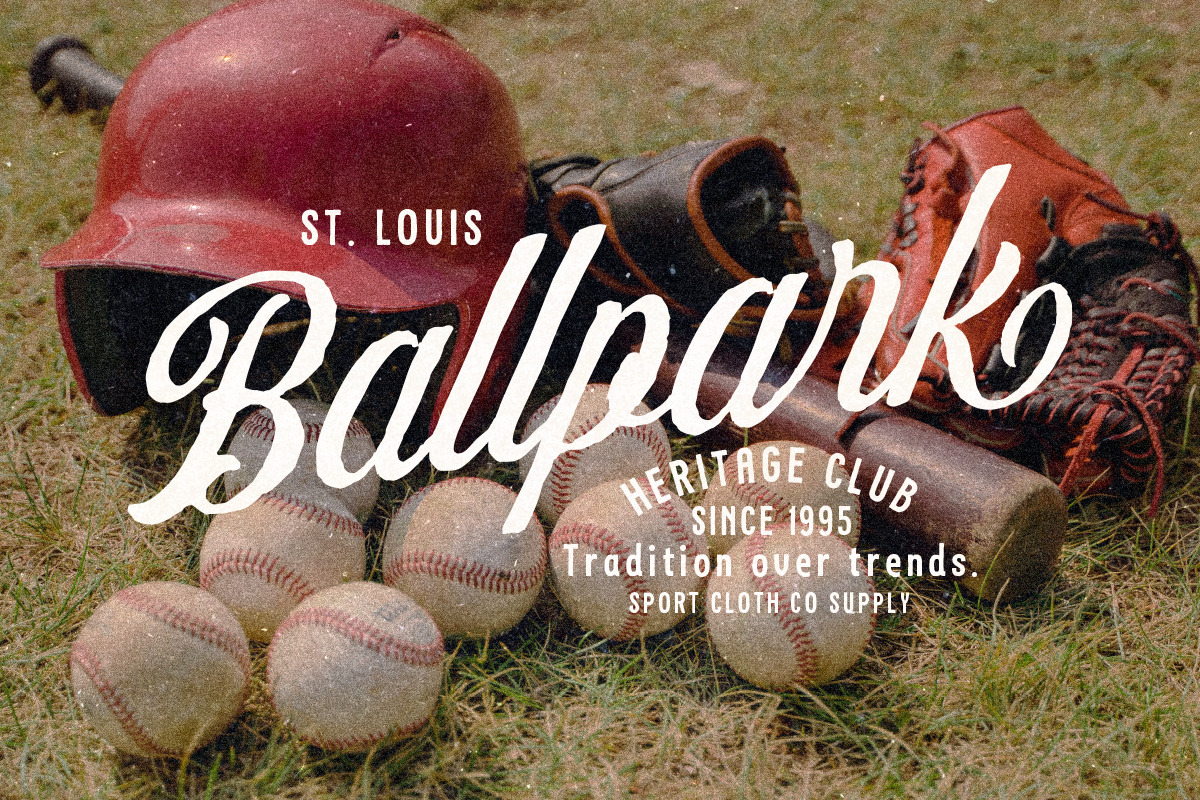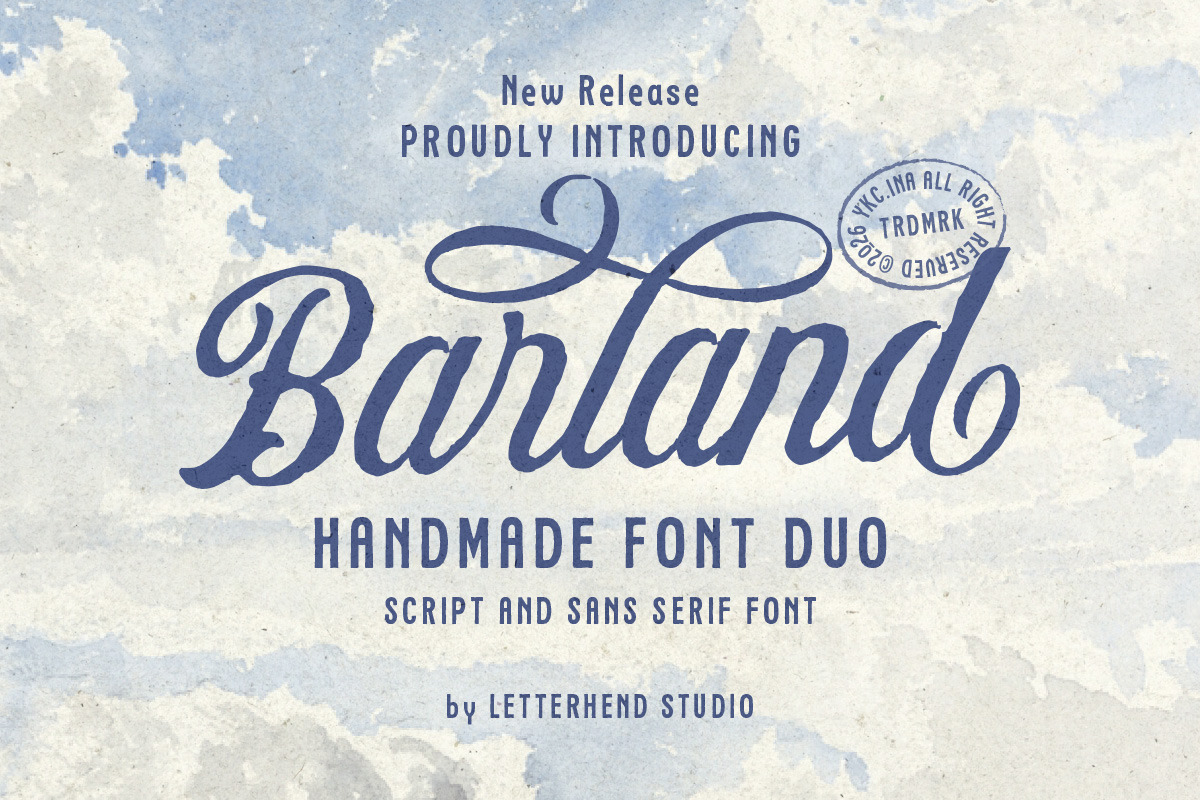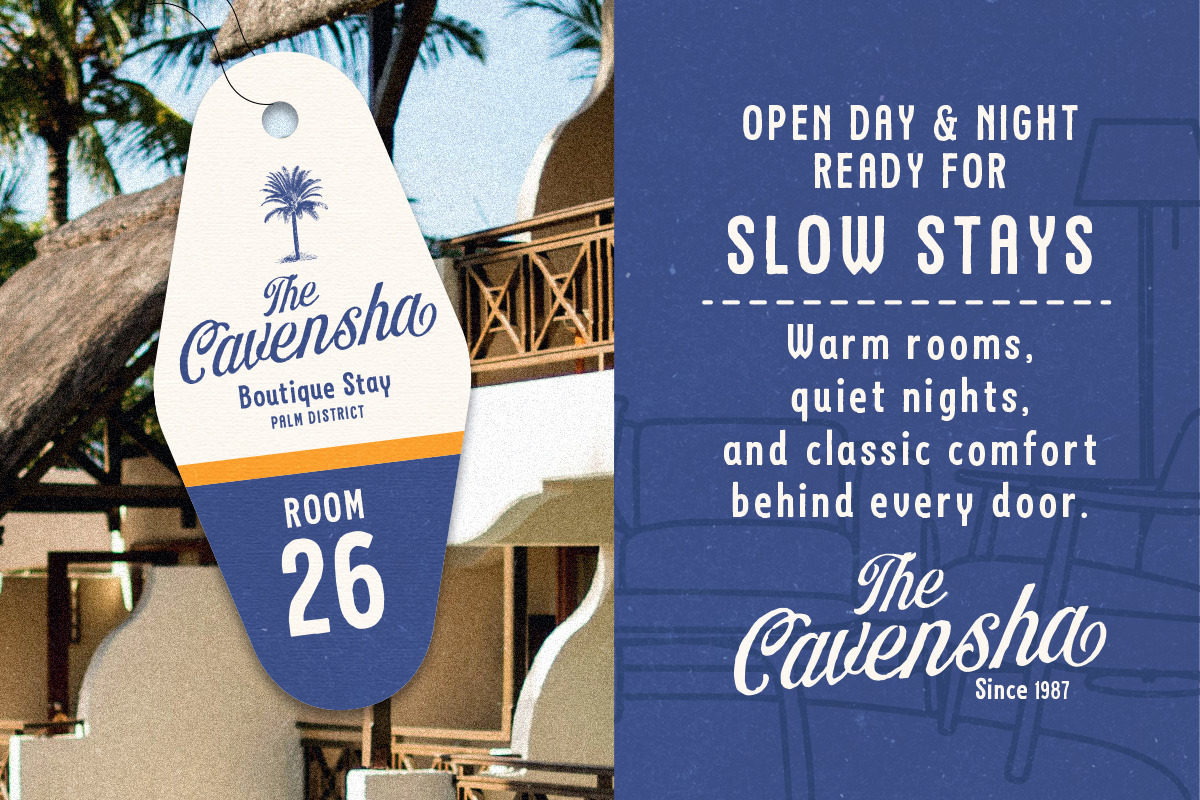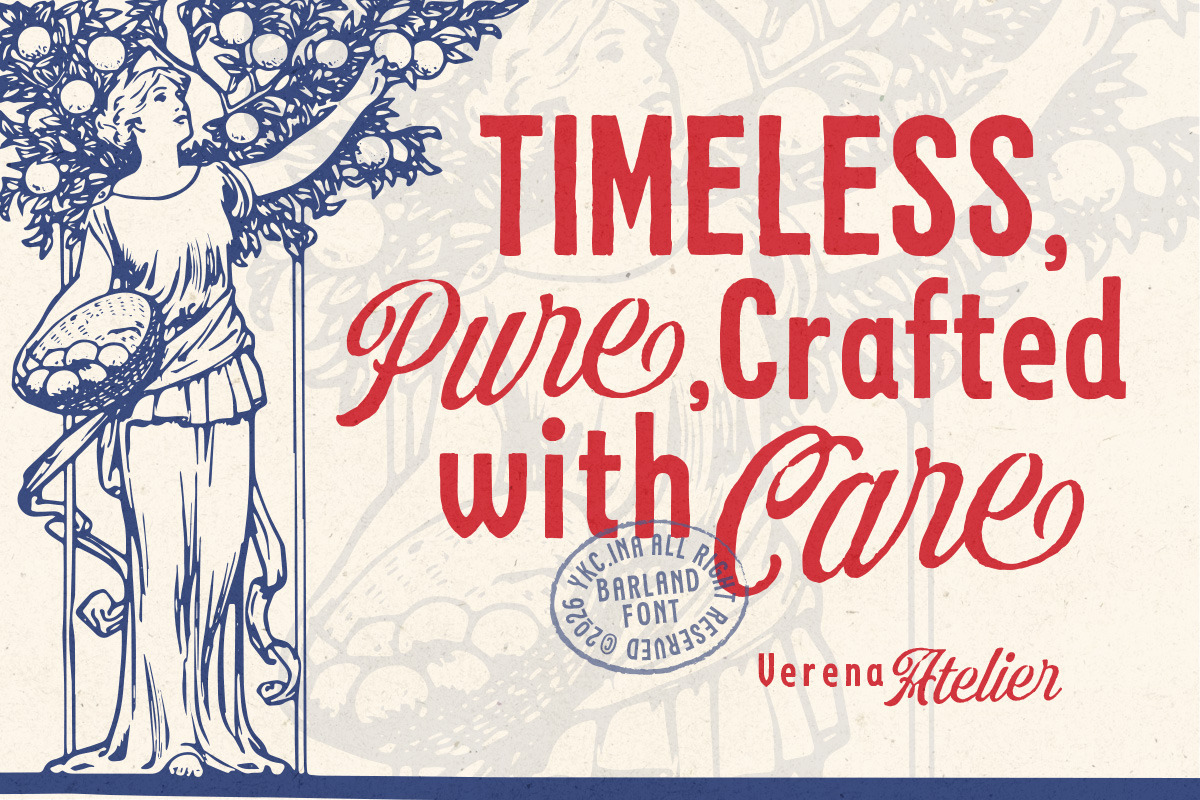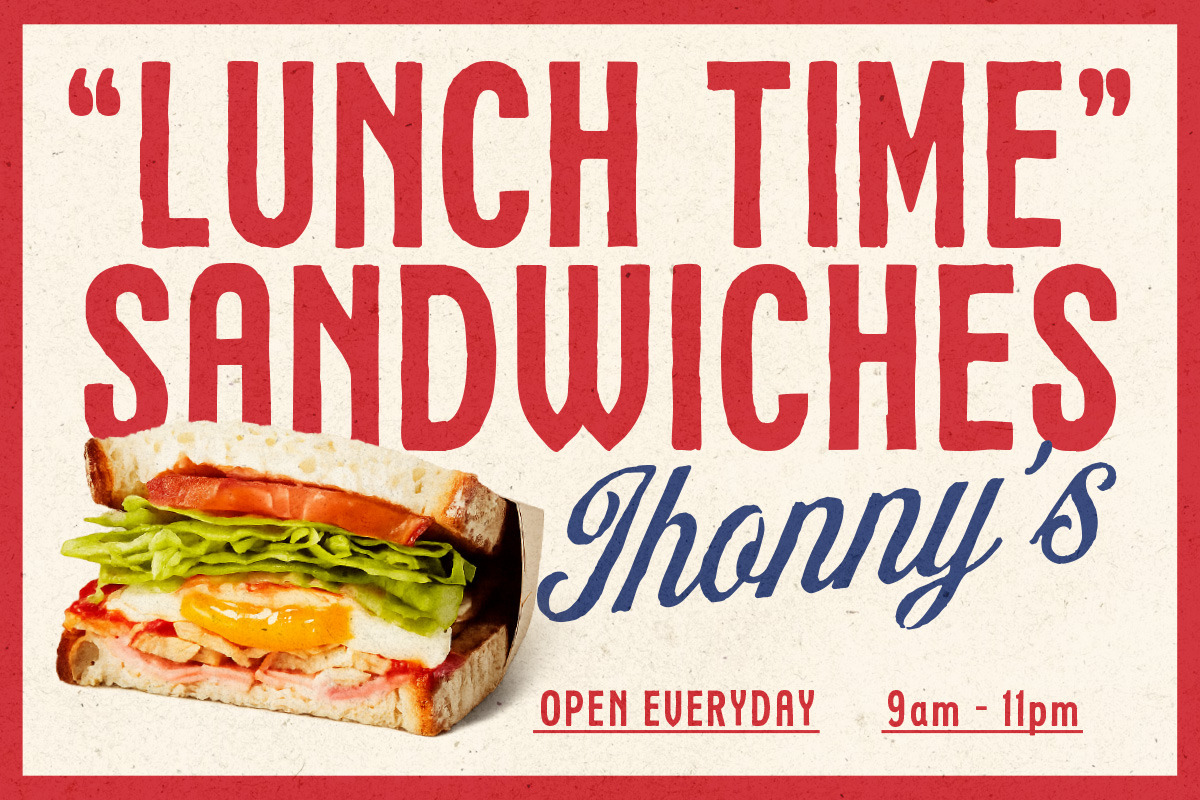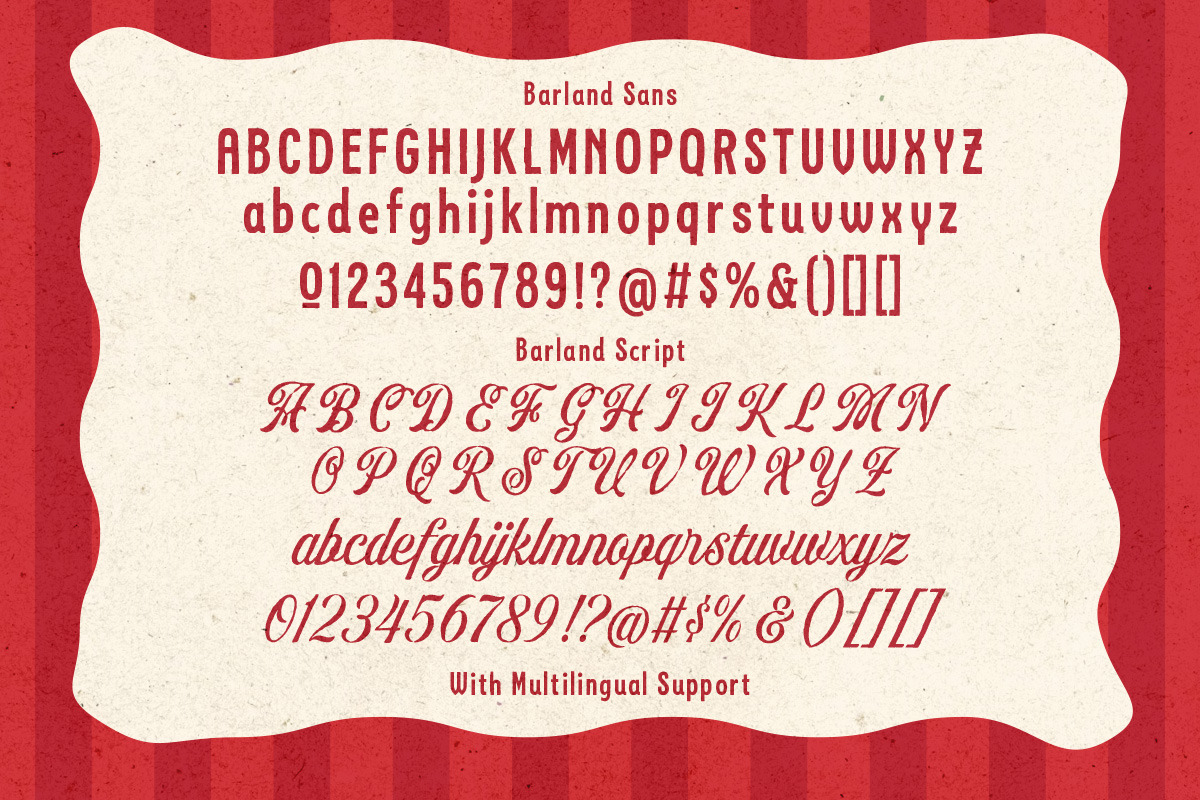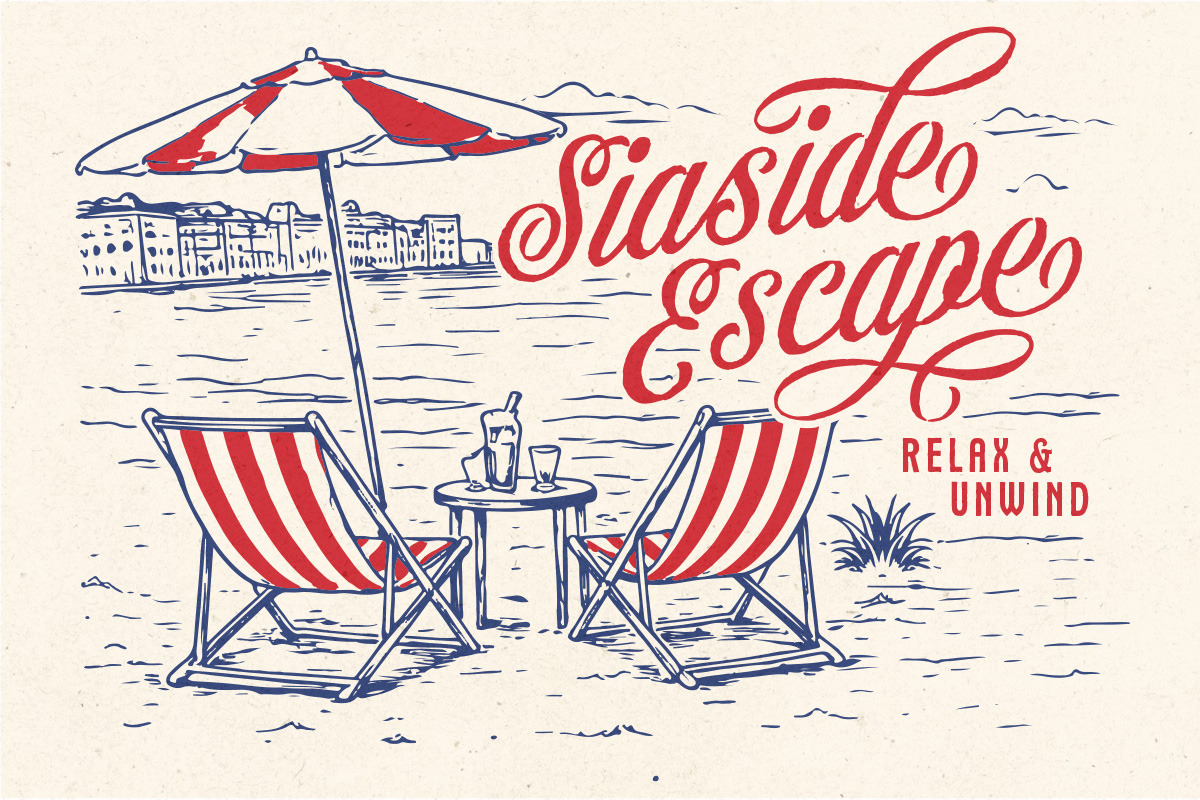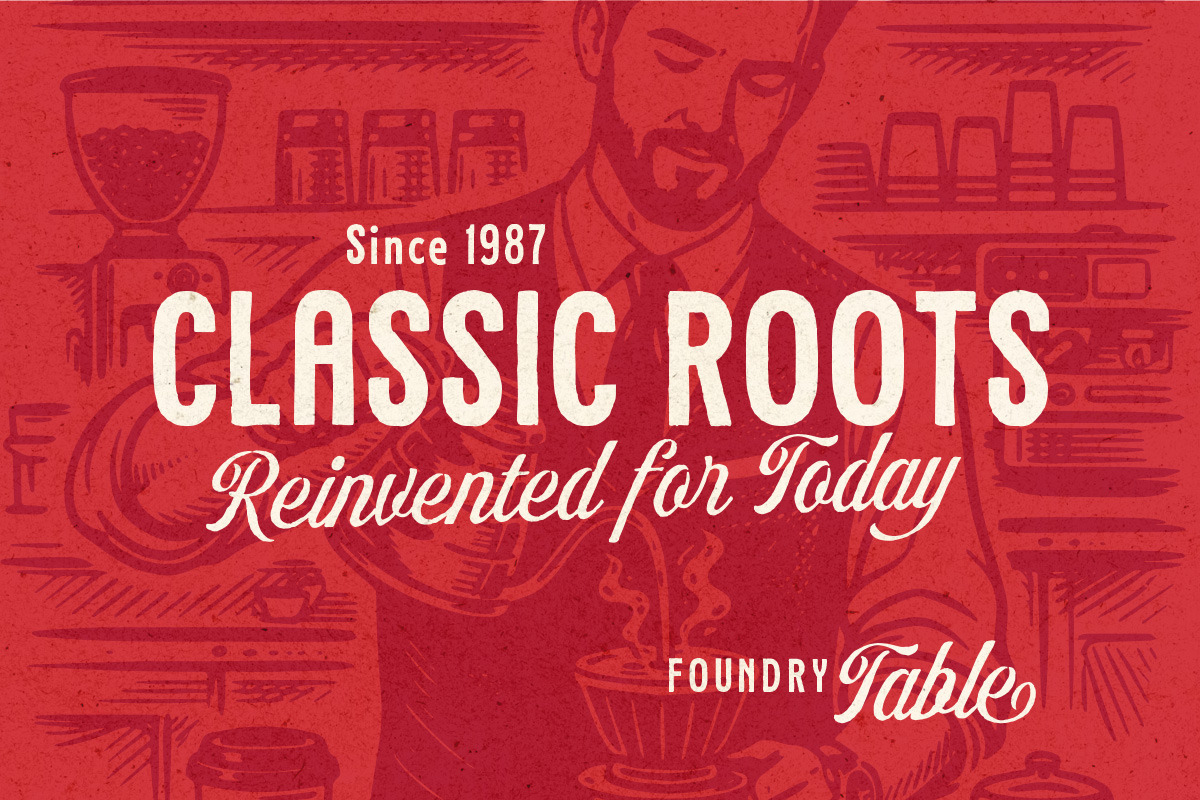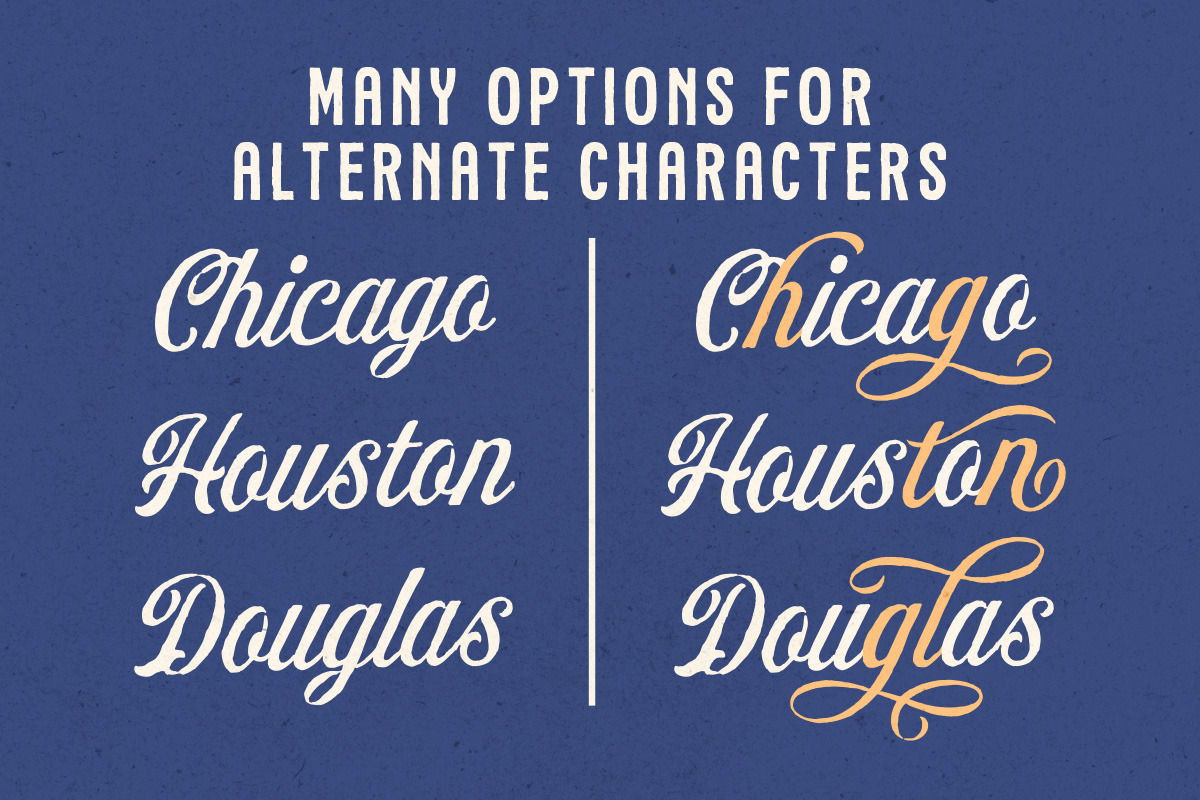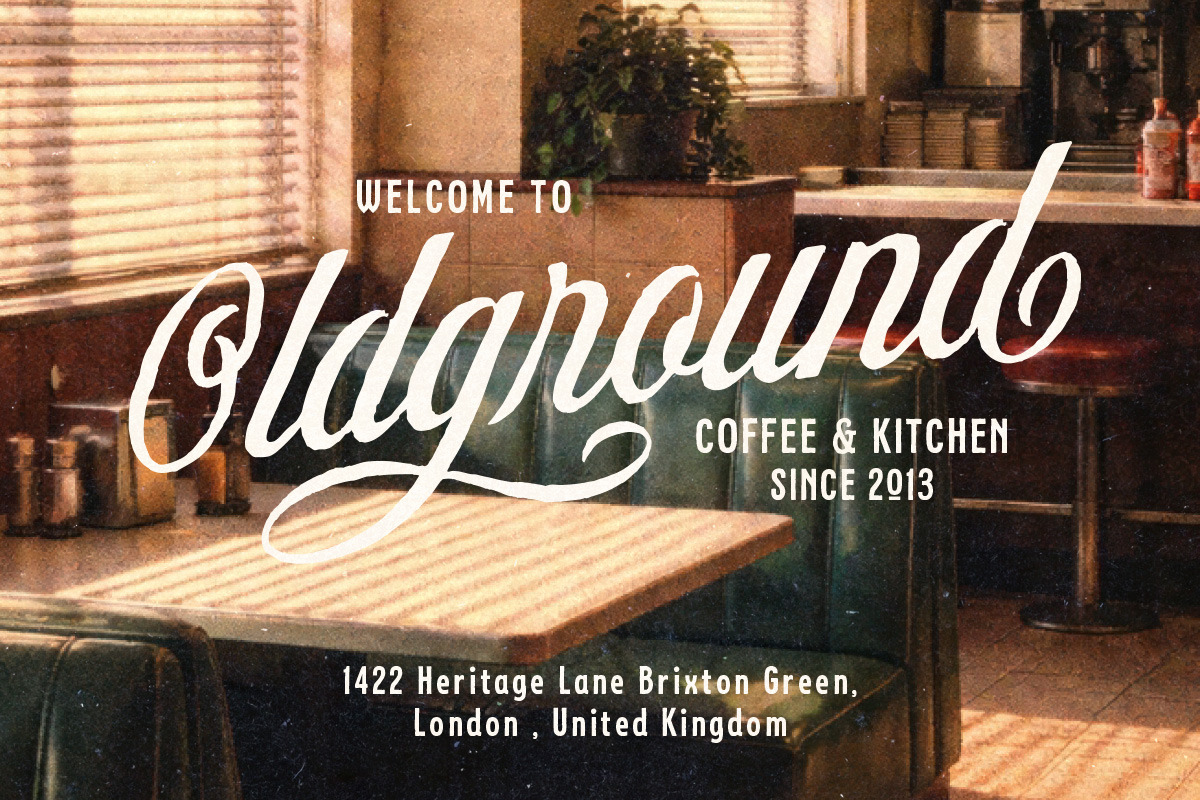
Barland – Handmade Font Duo
Barland is a handcrafted script and sans pairing inspired by classic sign painting and vintage print textures. The script features flowing strokes, soft curves, and subtle rough details, while the clean sans balances the composition with structure and clarity. It works beautifully for logos, packaging text, posters, labels, social media graphics, and branding projects that need a timeless handmade touch with a friendly retro character.